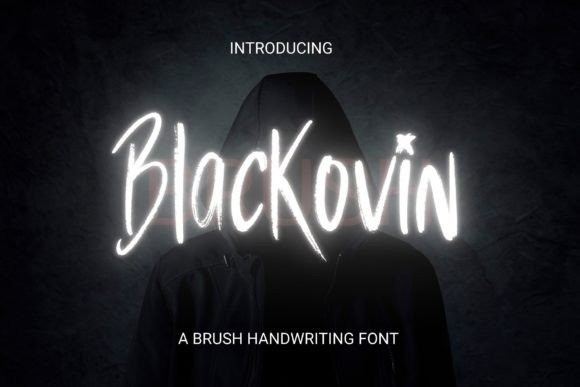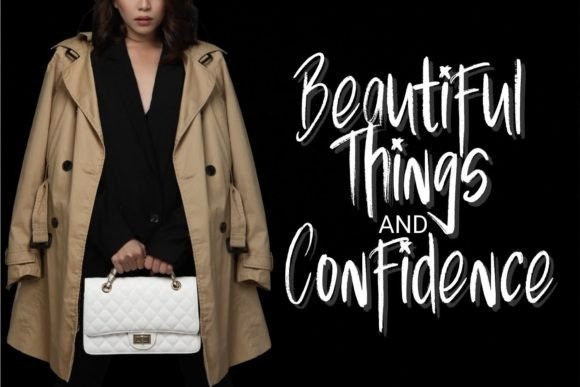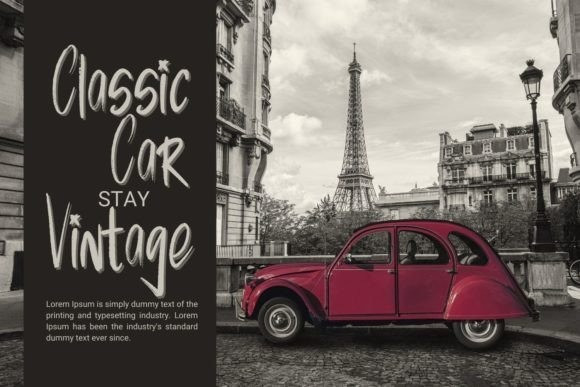
Blackovin Font
Blackovin is a modern and trendy handwritten brush font. No matter the topic, this font will be an incredible asset to your fonts’ library, as it has the potential to elevate any creation.